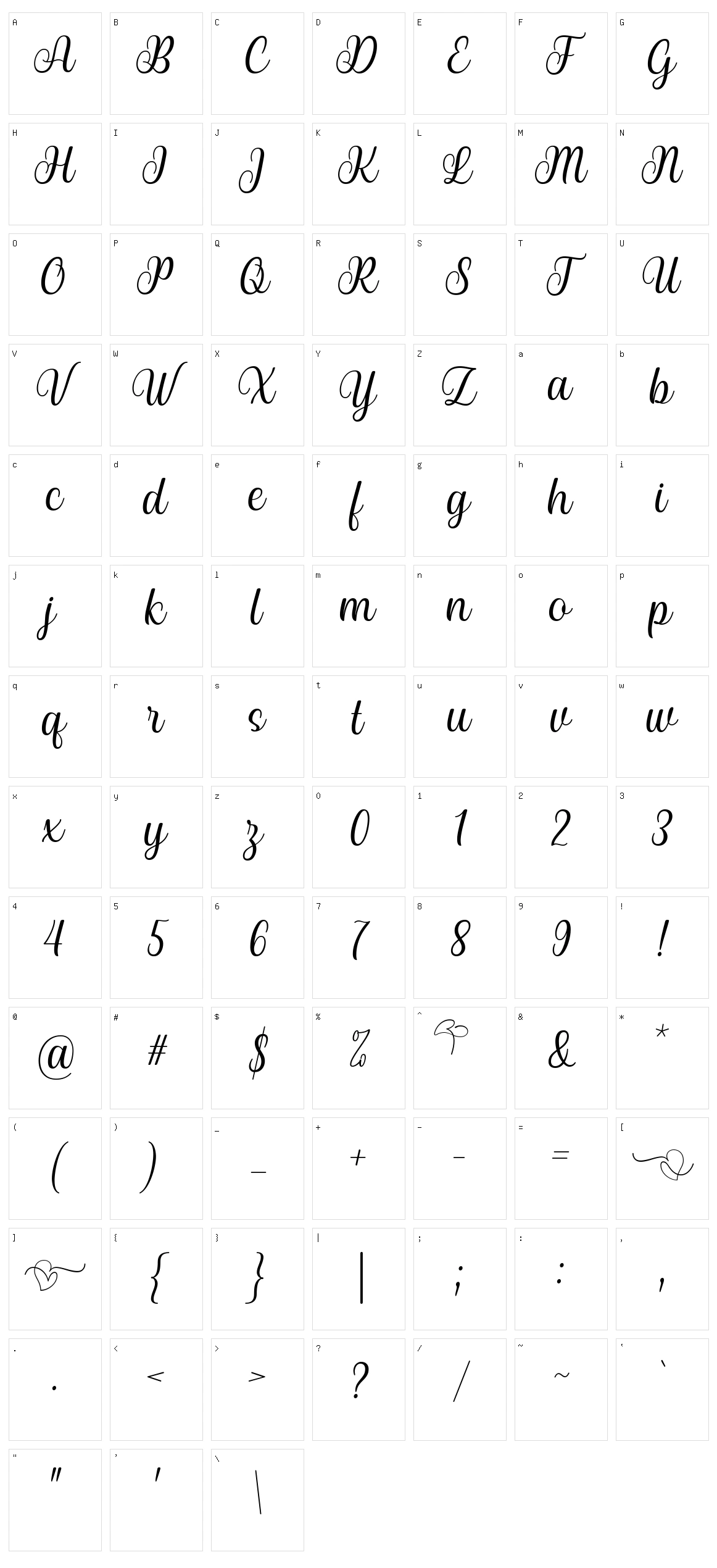
Anything Better
Designed by: 7NTypes
Description: The free font Anything Better is carefully designed by 7NTypes, showcasing a thoughtful balance of creativity and usability and falls under the Script font style. When you download the ZIP file, it contains only 32.04 KB of font files, making it lightweight and quick to download. Please review the license details below to understand permitted usage and distribution rights. If license information is not available, we recommend using this font for personal projects only or contacting the author directly for commercial usage permissions.